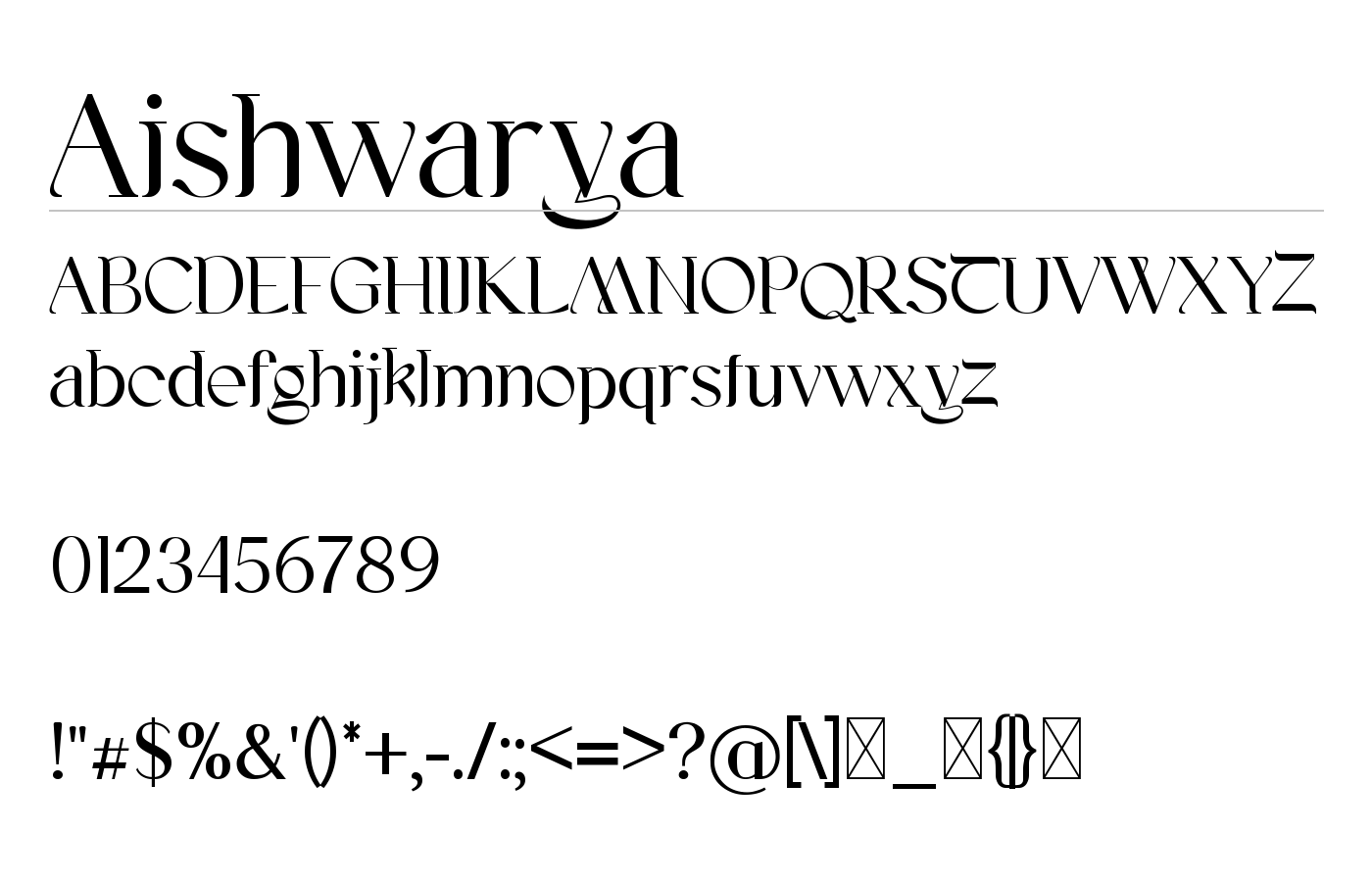
Aishwarya is an elegant serif font with a delicate, high-contrast design that combines sharp, thin serifs and refined letterforms with a subtle decorative flair, especially notable in its unique swashes and refined curves. It offers a sophisticated and stylish personality, making it ideal for luxury branding, editorial headlines, and fashion-related projects where a modern yet graceful touch is desired. This font’s distinctive style lends itself well to upscale logos, invitations, and packaging that seek to convey elegance and refinement.
Aishwarya Font